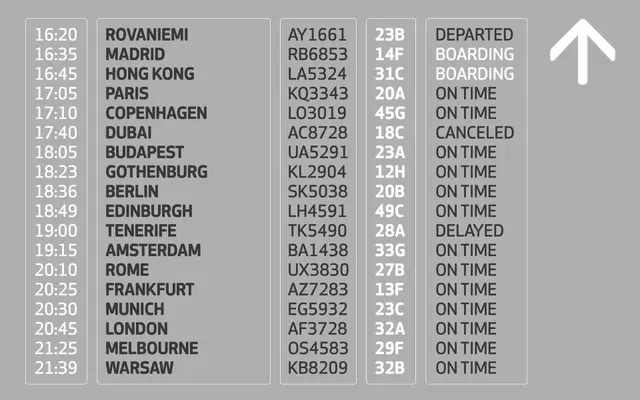
Apex Rounded
A rounded variant of the Apex New family, offering five weights with italics and a softer terminal treatment across an extended Latin character set.
Built on a geometric sans structure, the rounded stroke terminals give it a warmer and less austere feel than its sharp-ended counterpart. Five weights from Book to Ultra are available, each accompanied by an italic, making it viable across both display and text sizes. OpenType features include small capitals, oldstyle figures, tabular and proportional lining figures, fractions and multiple stylistic sets.
The rounded terminals on stroke ends give this geometric sans a soft, approachable character, distinguishing it from its sharper Apex New sibling while retaining a structured, constructed skeleton.